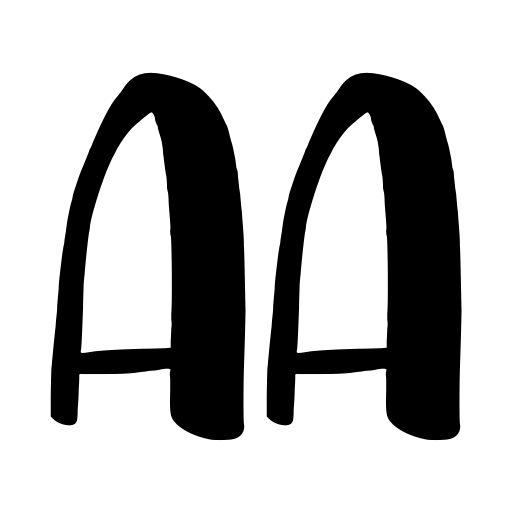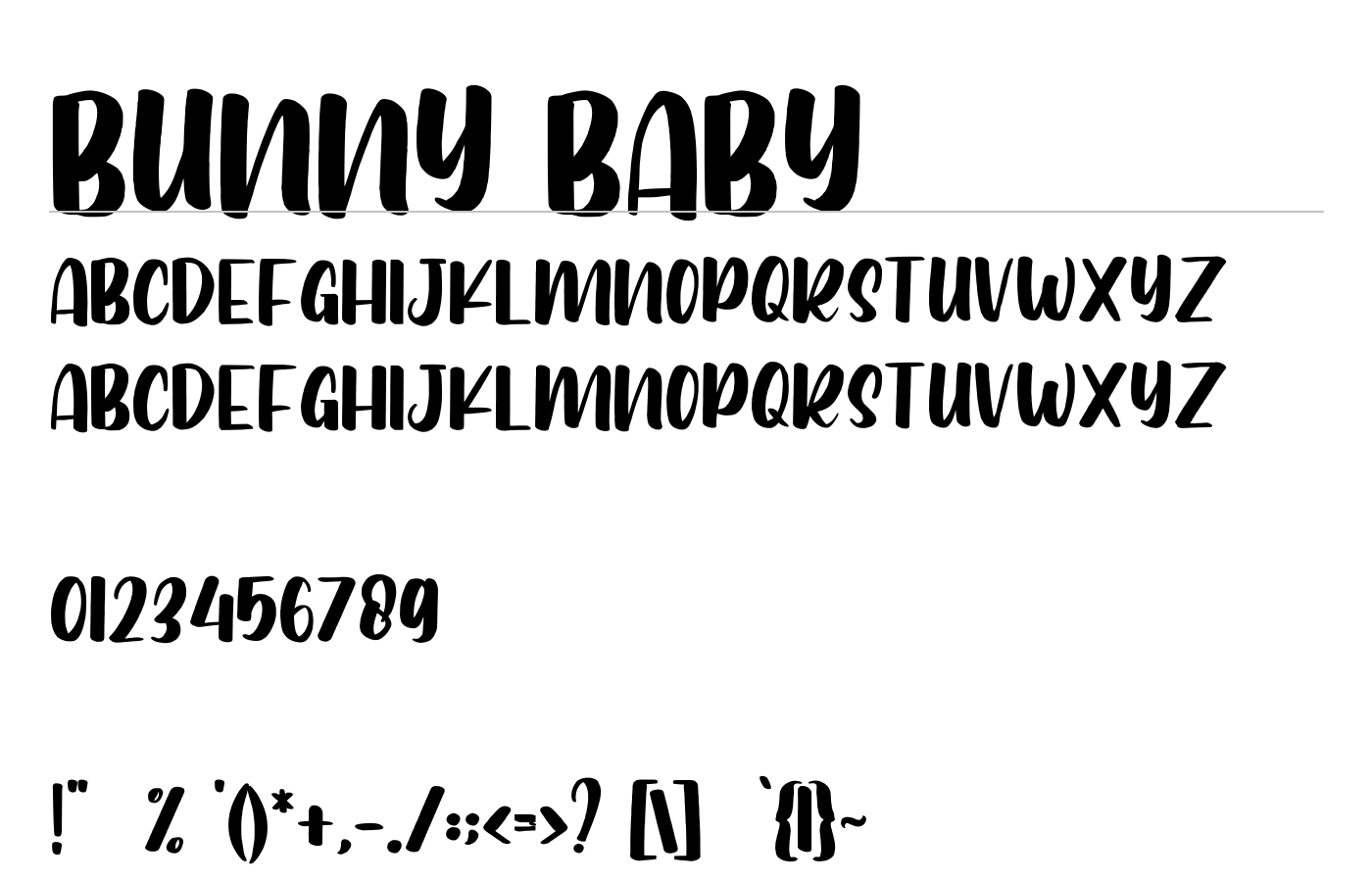
Bunny Baby is a playful, hand-drawn sans serif font with a bold weight and a friendly, casual feel. Its rounded, slightly uneven strokes and tall x-height make it approachable and perfect for children's products, informal branding, and fun headlines. This font works well where a warm, cheerful personality is needed to engage a youthful or whimsical audience.
Bunny Baby Font